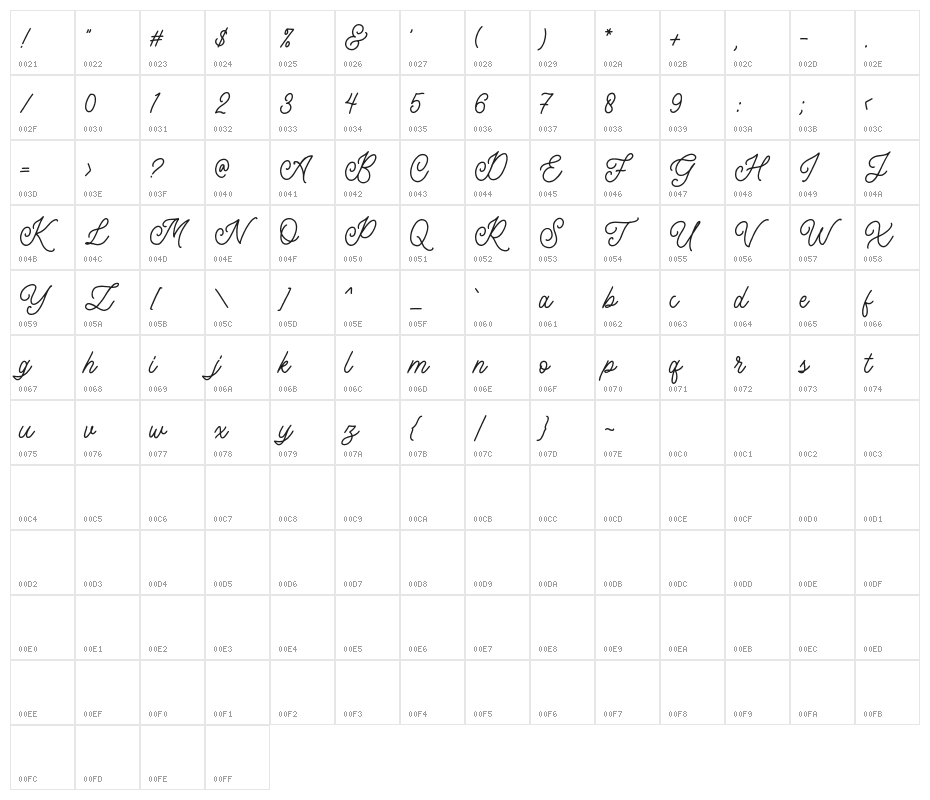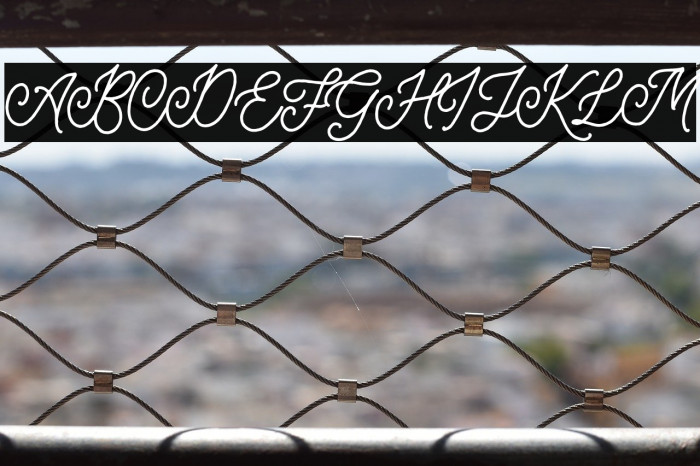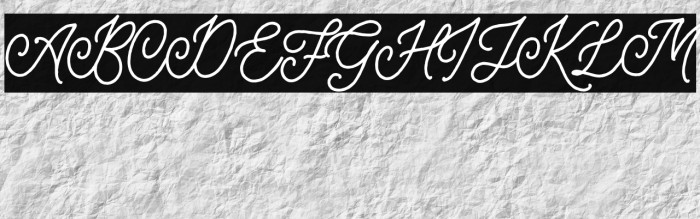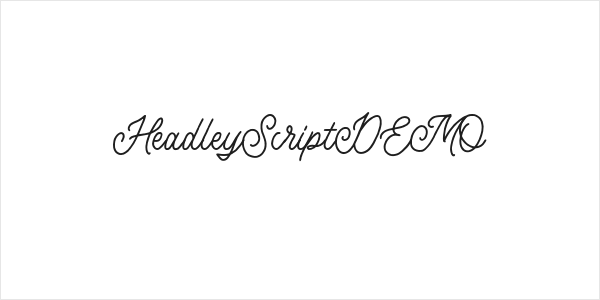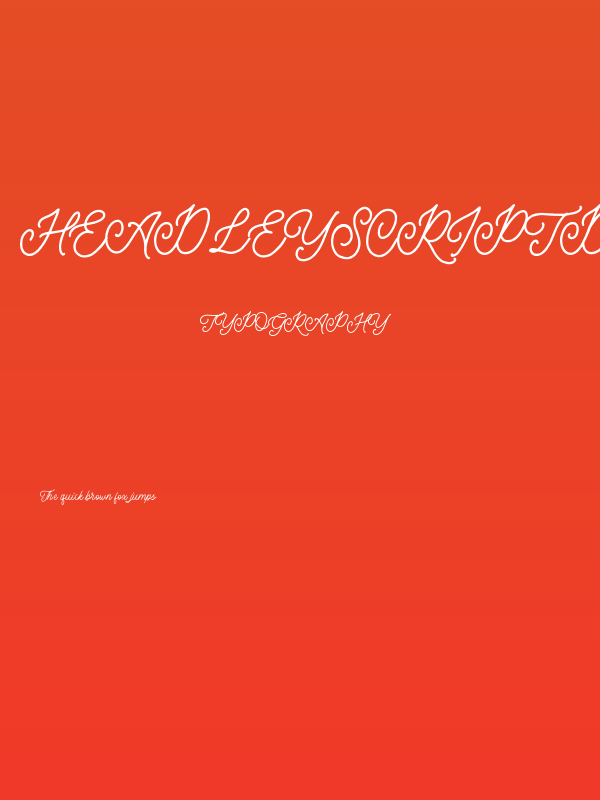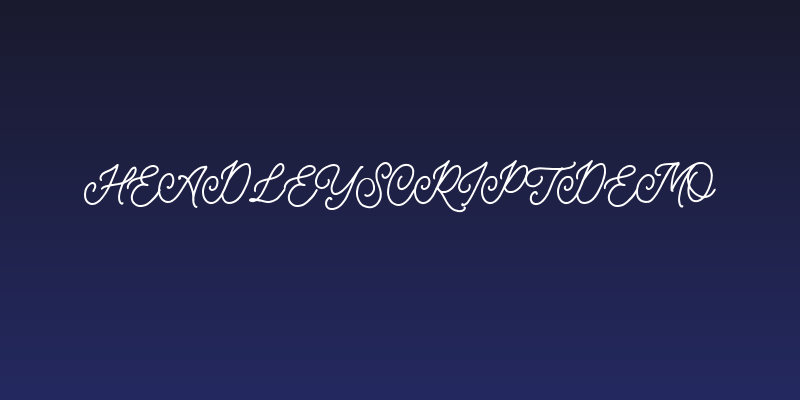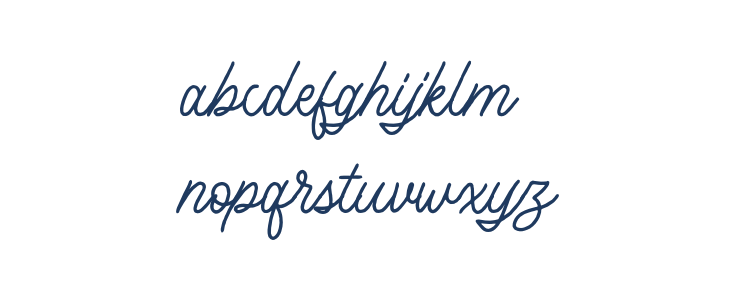
HeadleyScriptDEMO Font
HeadleyScriptDEMO Description
This font features an elegant and flowing script style, characterized by its smooth, cursive strokes and graceful loops. The uppercase letters are ornate and connected, while the lowercase letters maintain a consistent flow, enhancing readability. The numerals and special characters are crafted with the same fluidity, ensuring a cohesive appearance across all text. This font exudes a sense of sophistication and charm, making it ideal for projects that require a touch of elegance and personal flair.
| Overall Style | Elegant |
| Use Case | Logos, Invitations, Decorative text |
| Proposed Projects | Ideal for wedding invitations, greeting cards, elegant branding, and personal stationery. |